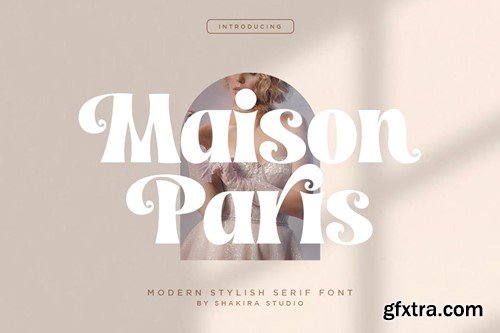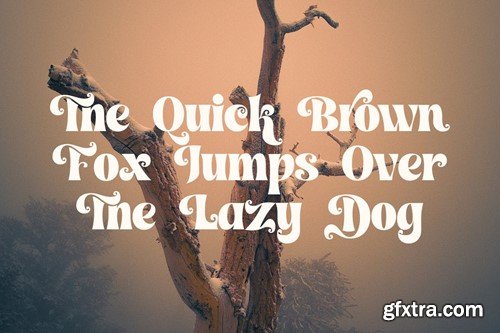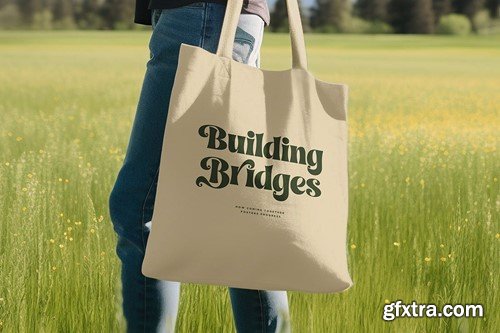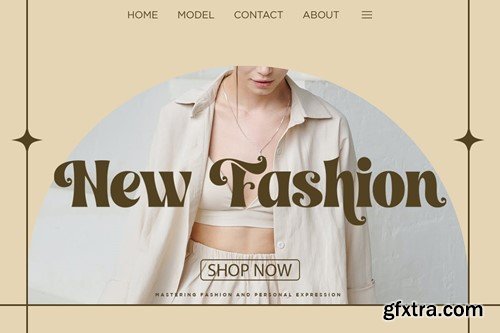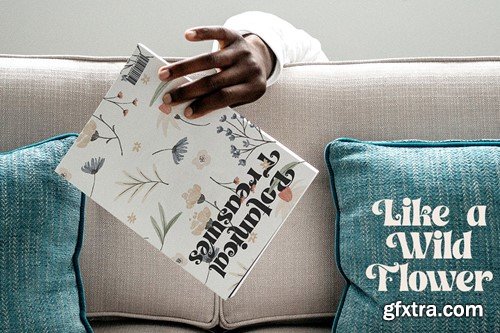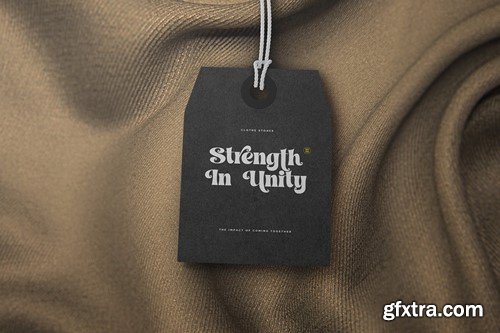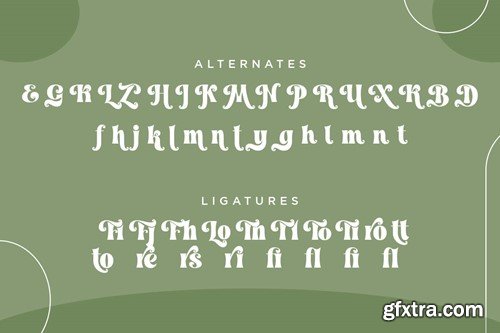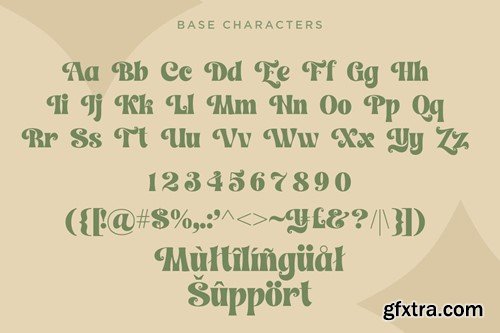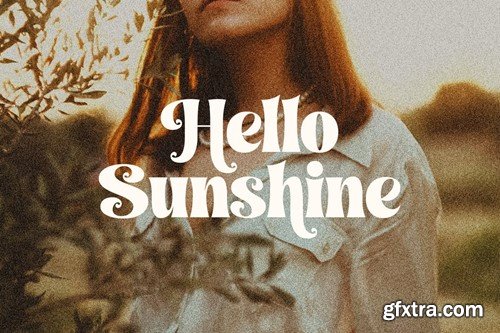
Maison Paris - 现代时尚字体 B8CEN3M
"Introducing Maison Paris - Where Modern Elegance Meets Timeless Sophistication! Maison Paris is the font that defines contemporary style, making it an absolute must-have in today's design scene. This font effortlessly marries modern chic with timeless sophistication, embodying the very essence of what's trending now in the world of typography. With a versatility that knows no bounds, Maison Paris is your key to creating stunning designs that demand attention in today's competitive landscape. Whether you're crafting a high-end brand's logo, a cutting-edge editorial layout, or a minimalist wedding invitation, this font adds an element of tasteful extravagance that's currently sought after. Don't miss the chance to infuse your designs with the most sought-after modern stylish serif font of the moment. Maison Paris is your ticket to ensuring your projects are impeccably current and stylish. Embrace the future of design today with Maison Paris!" Here's what you get: Multilingual character supports : (Afrikaans, Albanian, Catalan, Croatian, Czech, Danish, Dutch, English, Estonian, Finnish, French, German, Hungarian, Icelandic, Italian, Lithuanian, Maltese, Norwegian, Polish, Portuguese, Slovenian, Spanish, Swedish, Turkish, Zulu) Follow my shop for upcoming updates, and for more of my work, Thank you!